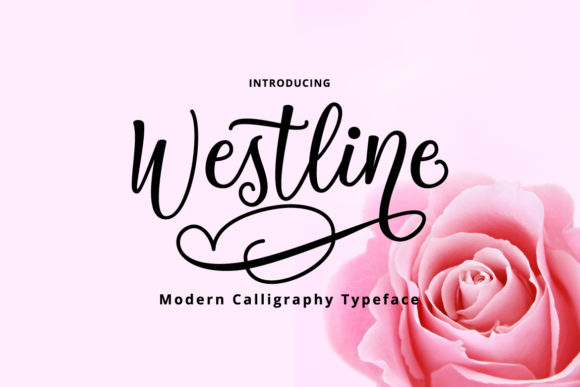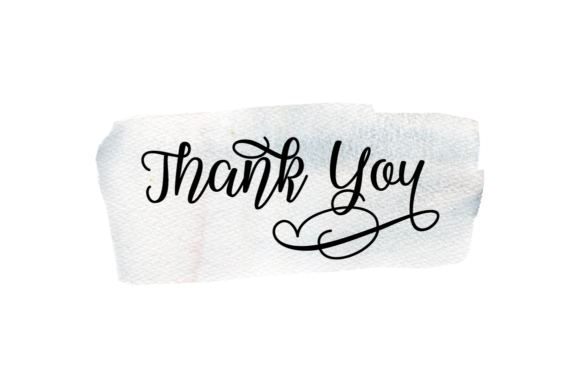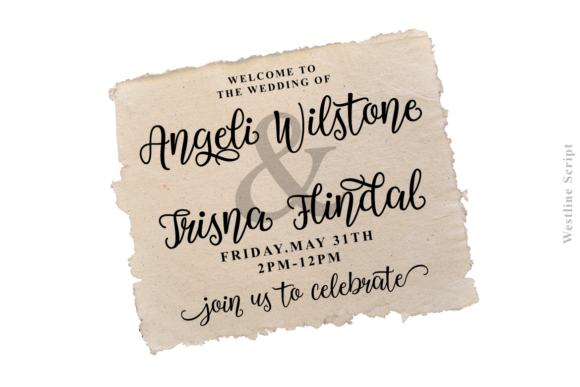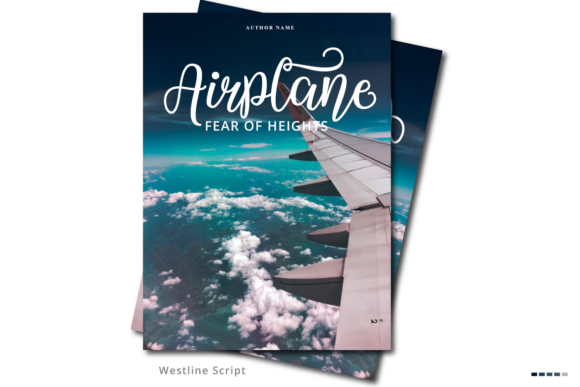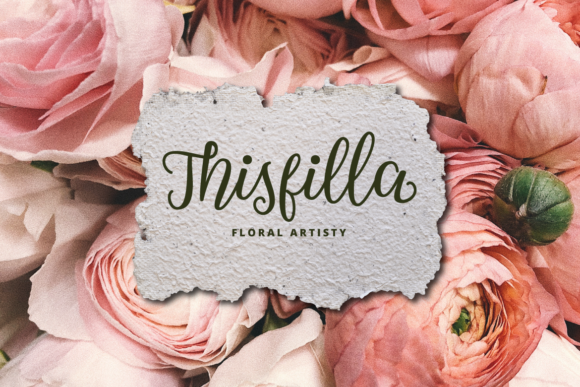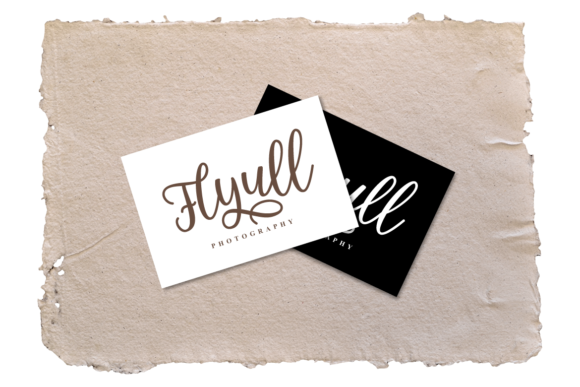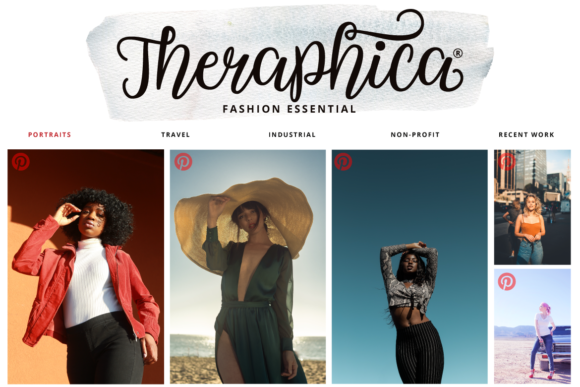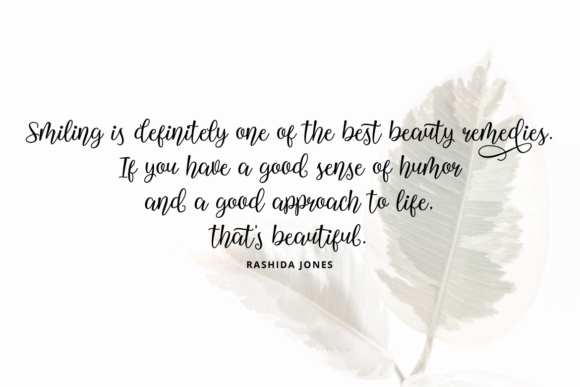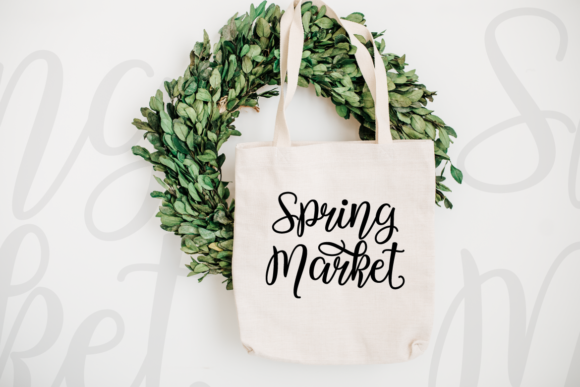
Westline Font
About Westline Font
Westline is a unique blend of classic and modern font. It features gorgeous swashes and ligatures that will add a romantic touch to your designs. Fall in love with its authentic feel and use it to create gorgeous wedding invitations, beautiful stationary art, eye-catching social media posts, and cute greeting cards.